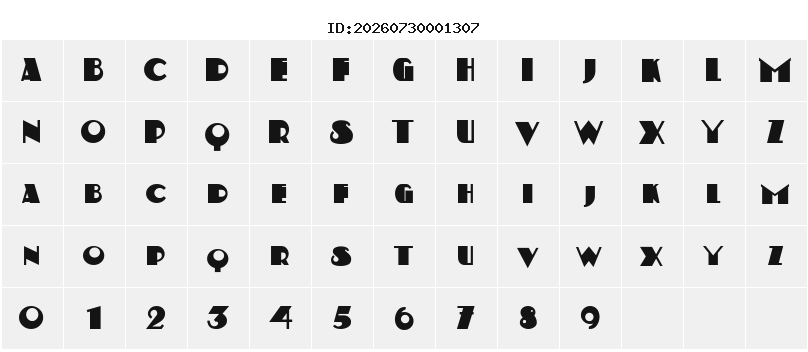
Kerfuffle Preview
• Font Name: Kerfuffle
• Full Font Name: Kerfuffle
About Kerfuffle.ttf
Kerfuffle.ttf is a modern, elegant sans-serif font designed for ultimate readability and visual harmony. Perfect for branding, headlines, web design, and print materials.